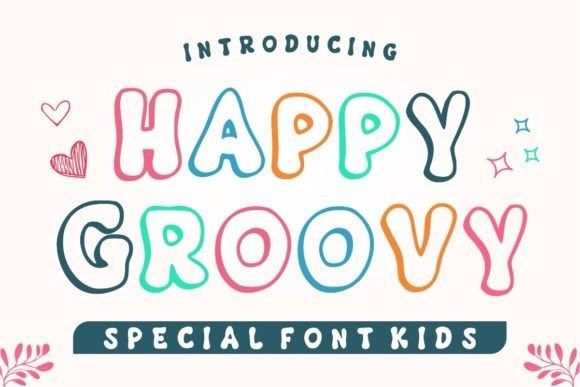
Happy Groovy Display Font
Happy Groovy Display Font is a versatile, stylish, and playful display font perfect for a wide spectrum of applications such as greeting cards, headlines, and many more!